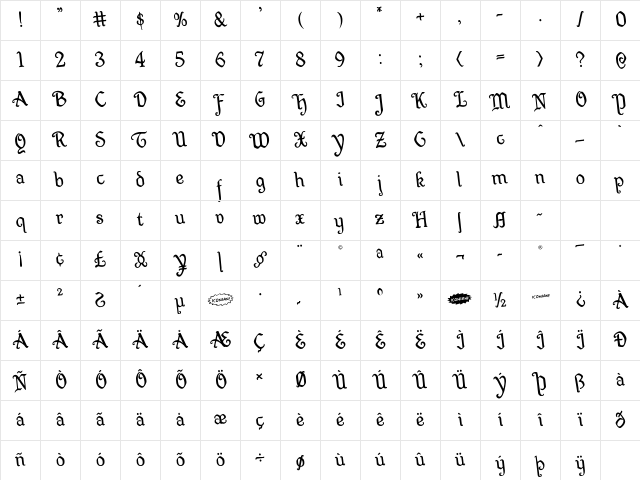
Quill Sword Rotated Regular Free Font
Quill Sword Rotated Regular
Design Context for Quill Sword Rotated
Quill Sword Rotated is a composed and adaptable typeface that performs quietly and consistently across a wide range of design contexts.
Pro Tip: Use Quill Sword Rotated in both headline and body roles to test its range before committing to a single application.